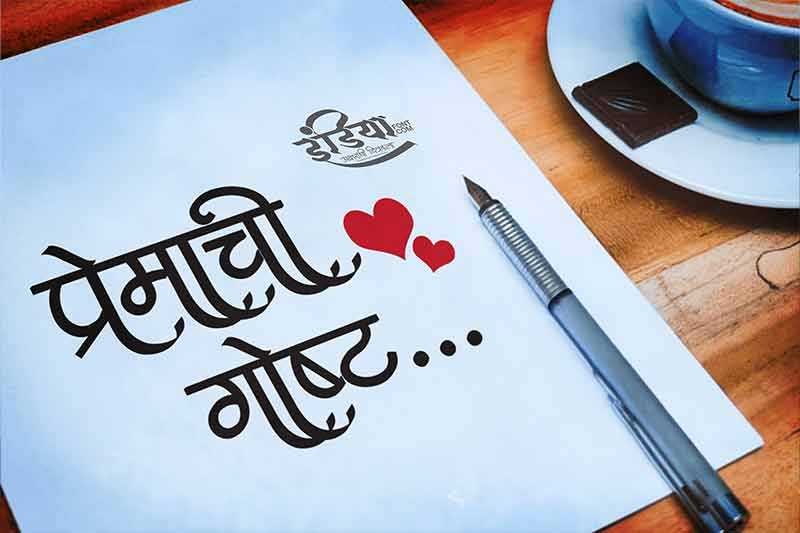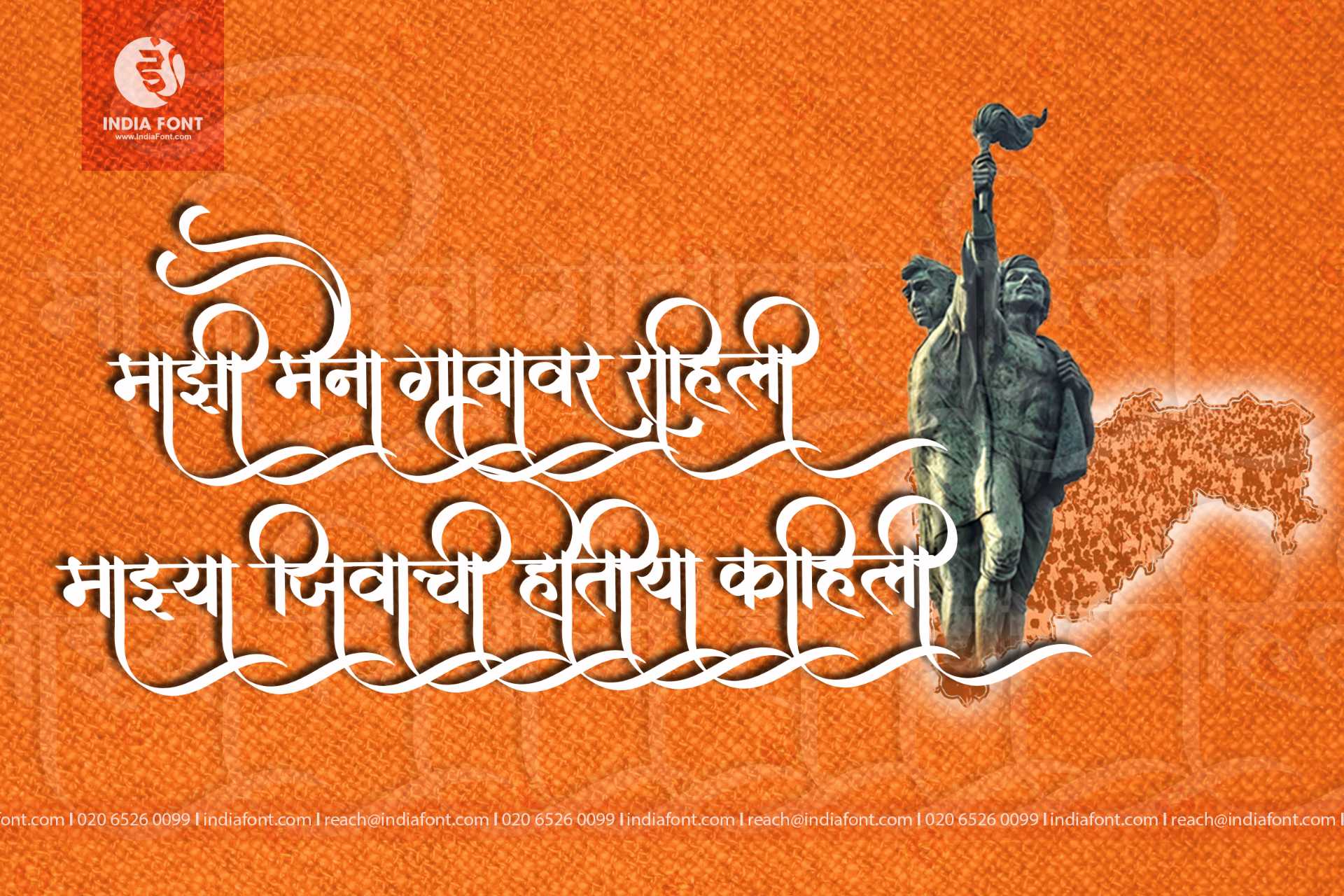
AMS Chhatrapati
AMS Chhatrapati font free download a Hindi and Marathi calligraphy font fit for royalty. With its majestic letterforms and captivating flourishes, this font exudes power and elegance. Make a lasting impression with this commanding font.
AMS Chhatrapati font free download a Hindi and Marathi calligraphy font fit for royalty. With its majestic letterforms and captivating flourishes, this font exudes power and elegance. Make a lasting impression with this commanding font. This calligraphy font combines elegance with functionality, making it perfect for various design applications.
AMS Chhatrapati is a professionally crafted calligraphy typeface that brings clarity and style to your projects. Designed with attention to detail, it supports hindi and marathi characters flawlessly.
Whether you're working on logos, posters, books-publications, or other creative projects, AMS Chhatrapati delivers consistent performance across both digital and print media. This carefully designed typeface ensures readability and visual appeal in all your design work.
AMS Chhatrapati is a professionally crafted calligraphy font that exemplifies modern Hindi typography design. This free font is perfect for designers seeking professional branding and logo design projects.
Available in 1 weight and supporting hindi, marathi scripts, AMS Chhatrapati offers exceptional versatility for both digital and print media. Whether you're working on logos, posters, books-publications, this carefully designed typeface ensures consistent quality and professional results across all your typography projects.